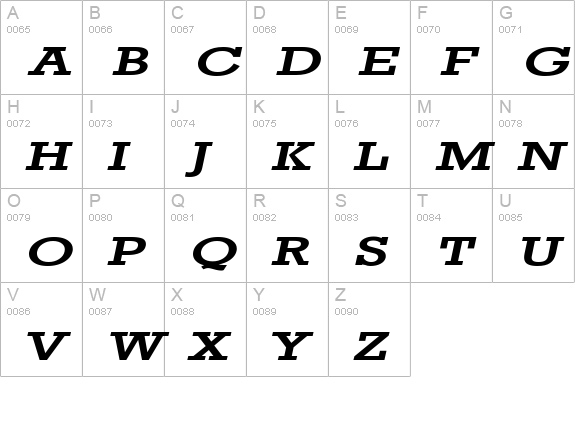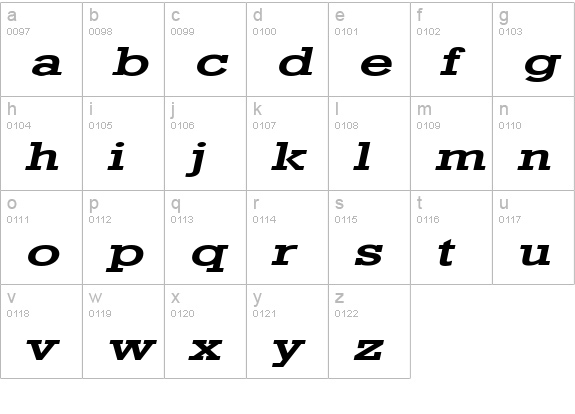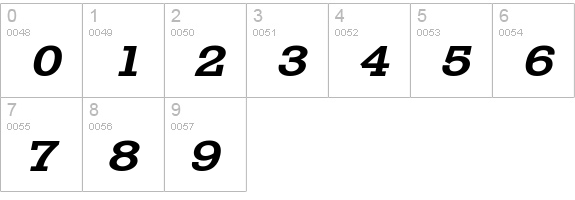
Geo 986 Extended Bold Italic is a strong, high-contrast, extended-width, italic variant in the Geo typeface family \xE2\x80\x94 well suited to headlines, attention-grabbing titles, and strong calls-to-action.
Geo 986 Extended Bold Italic font is a striking and modern typeface that exudes confidence and sophistication. Its bold and italicized design adds a touch of flair to any project, making it ideal for headlines, titles, and other prominent text elements. The extended width of the characters gives the font a bold and impactful presence on the page. This versatile font is perfect for a wide range of design projects, from branding and advertising to editorial and web design. Its clean lines and sharp angles create a professional and polished look that will make your text stand out. Best of all, Geo 986 Extended Bold Italic font is free to download at FontsMarket.com. Whether you're a seasoned designer looking to add a fresh new font to your collection or a beginner searching for the perfect typeface for your project, this font is a fantastic choice. Don't miss out on the opportunity to enhance your designs with this stylish and eye-catching font. Download Geo 986 Extended Bold Italic today and take your typography to the next level.